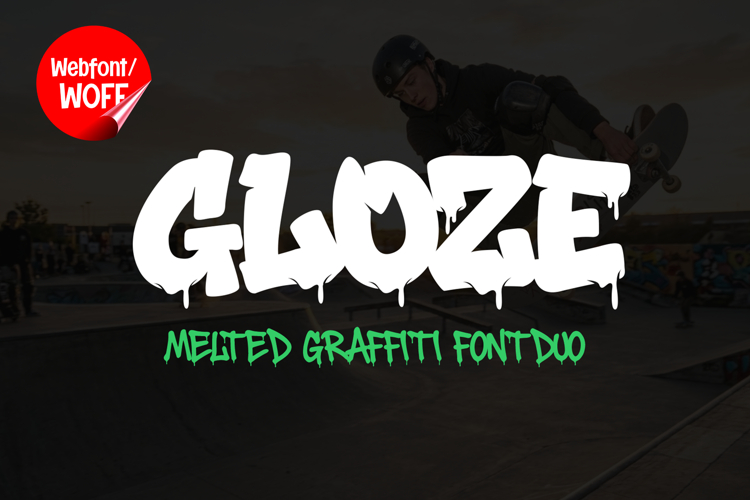
Gloze - Graffiti Webfont Urban Melt Style for Headlines
Gloze is a powerful graffiti webfont designed specifically to bring bold urban energy into modern websites. Inspired by authentic street tagging, dripping paint textures, and expressive graffiti lettering, this typeface transforms ordinary web typography into striking visual statements. Built for digital environments, Gloze is optimized to perform beautifully across browsers while maintaining its raw, artistic character.
This webfont is particularly crafted for headline usage on landing pages, where strong first impressions are essential. In today’s fast-scrolling digital landscape, capturing user attention within seconds is critical—and Gloze delivers exactly that. Its thick, melting letterforms and fluid drip-style shapes create an immediate visual impact that draws the eye and invites users to engage further with your content.
Gloze works exceptionally well as a hero headline font. Whether placed at the top of a landing page, used in bold promotional banners, or featured in call-to-action sections, it creates a memorable identity that sets your website apart. The graffiti-inspired style communicates creativity, confidence, and a rebellious edge, making it ideal for brands that want to stand out from clean, overused minimalist typography trends.
From a design perspective, Gloze is perfect for industries and niches that thrive on strong visual identity. It is highly suitable for streetwear brands, music platforms, urban culture websites, gaming pages, creative portfolios, and edgy product landing pages. Its expressive style makes it an excellent choice for campaigns that need to communicate energy, attitude, and originality.
One of the key strengths of Gloze as a webfont is its ability to function as a focal point. When used as a headline, it naturally becomes the centerpiece of the layout. Designers can pair it with clean sans-serif fonts for body text to create a balanced hierarchy, where Gloze captures attention and supporting fonts maintain readability. This contrast enhances user experience while keeping the design visually engaging.
The melting and dripping characteristics of Gloze add a sense of motion and depth to static web pages. This makes it particularly effective for interactive designs, animated headers, or scroll-based effects. When combined with subtle animations—such as fade-ins, parallax scrolling, or hover effects—the font can elevate the overall feel of the website into something more immersive and dynamic.
In branding-focused landing pages, Gloze helps communicate a strong personality instantly. It tells users that the brand is bold, creative, and unafraid to break conventions. This is especially valuable for startups, fashion brands, and creative agencies that want to differentiate themselves in competitive markets.
Another advantage of Gloze is its adaptability within digital layouts. It can be used not only for main headlines but also for section titles, promotional text, and highlight banners. Its consistent style ensures that all key messaging areas maintain a cohesive visual identity. Despite its expressive form, it remains legible at larger sizes, making it reliable for impactful typography.
Because Gloze is designed as a display webfont, it performs best in larger text sizes where its details and dripping effects can fully shine. It is not intended for long paragraphs but rather for high-impact text elements that guide user attention and reinforce branding. This makes it a strategic tool in web design, where hierarchy and clarity are essential.
In conclusion, Gloze is more than just a webfont—it is a statement piece for digital design. It brings the raw spirit of graffiti into the online world, allowing websites to feel more expressive, energetic, and visually distinctive. If your goal is to create a landing page that immediately captures attention and leaves a lasting impression, Gloze is the perfect choice.